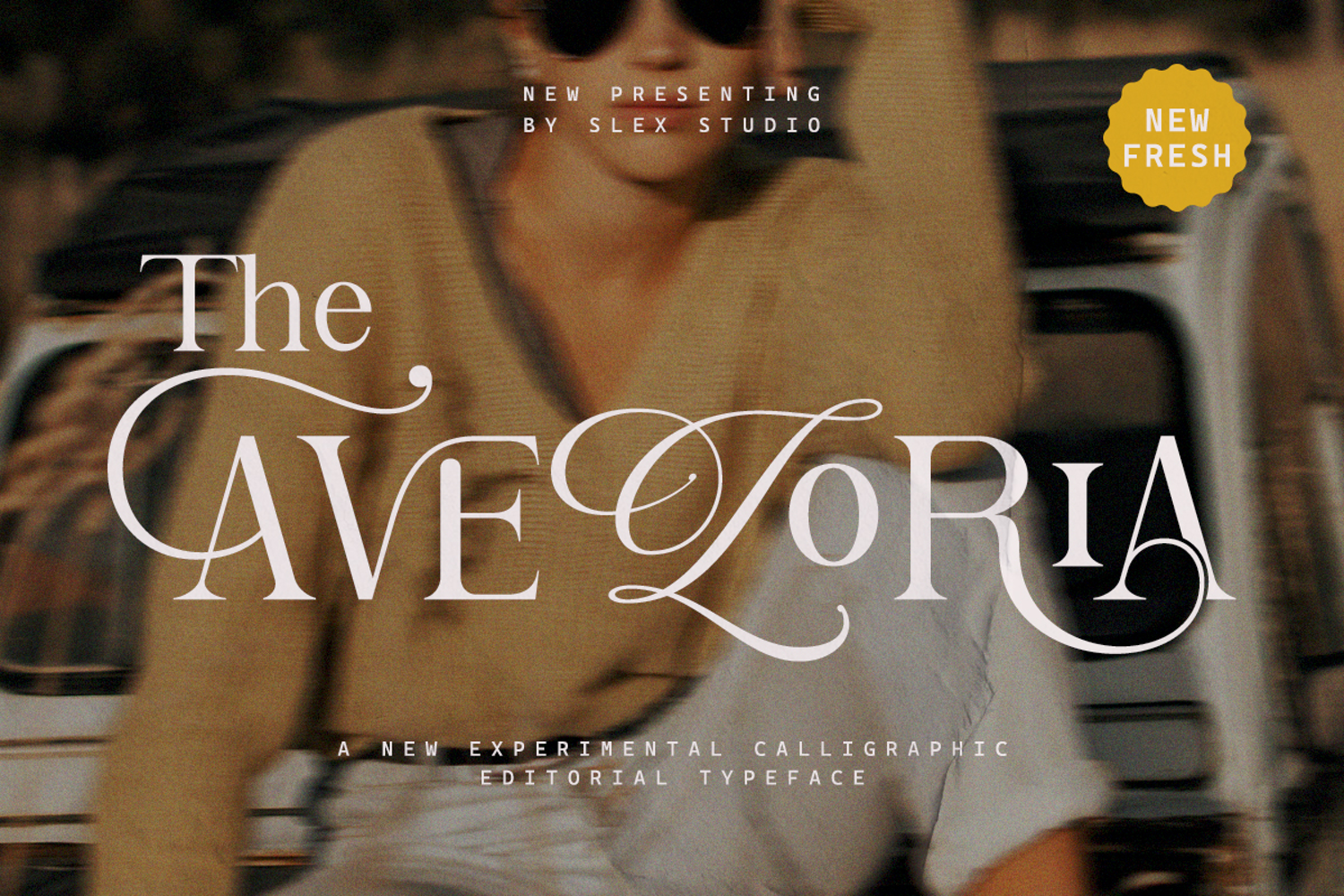
The Aveloria
The Aveloria is a sophisticated experimental typeface that blends the elegance of calligraphy with the boldness of modern editorial design. Its sweeping curves, sharp contrasts, and graceful ligatures create a timeless, luxurious impression. Designed for high-end branding, fashion editorials, magazines, and logo design, The Aveloria captures both classic beauty and contemporary flair. Every letter is crafted to evoke emotion and sophistication, making your typography stand out with style and personality.